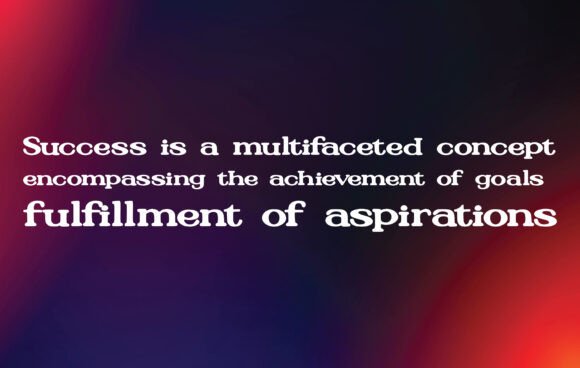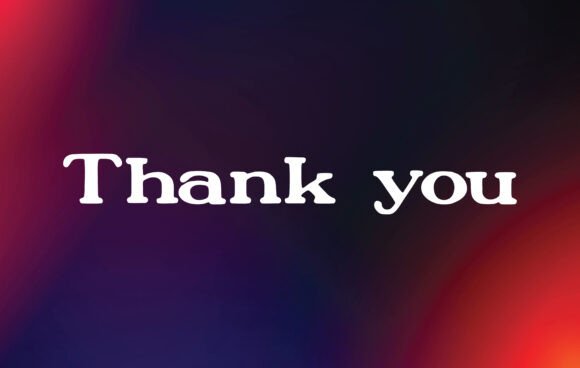
Introduction to Damari Font
Damari is a lovely and beautiful font.
Key Features of Damari Font
Why Choose Damari Font?
Damari Font offers exceptional quality and versatility, making it a valuable addition to your design toolkit. Whether you’re creating for personal projects or commercial use, Damari Font delivers professional results.